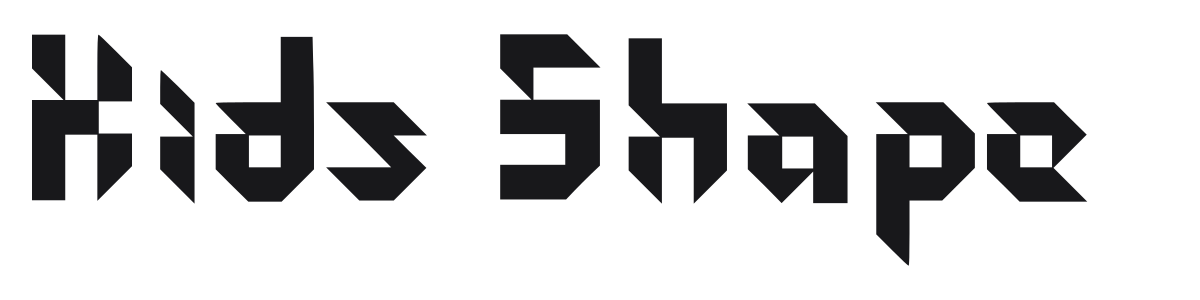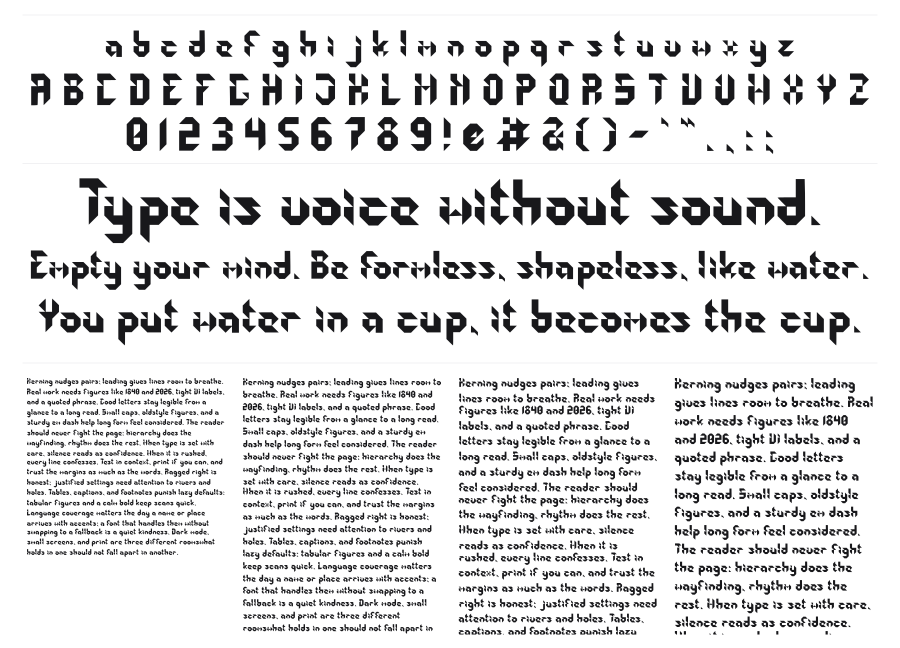
Kids Shape
Kids ShapeLetter is a bold modular display font built from interlocking squares and diagonal cuts, where every curve has been replaced by a sharp geometric slice. The result sits at an unusual crossroads: futuristic enough for sci-fi branding, approachable enough for children's media. It works best large, where the puzzle-like construction of each character can be fully appreciated.